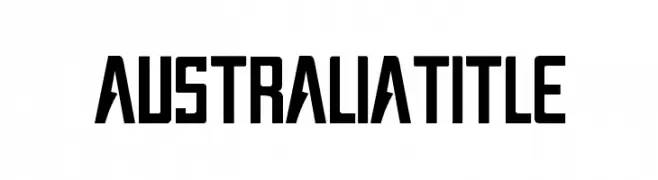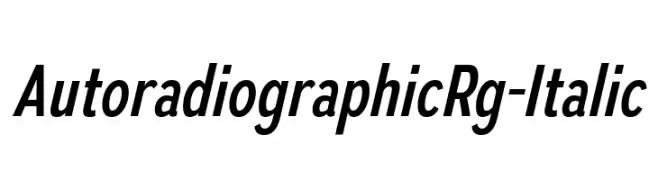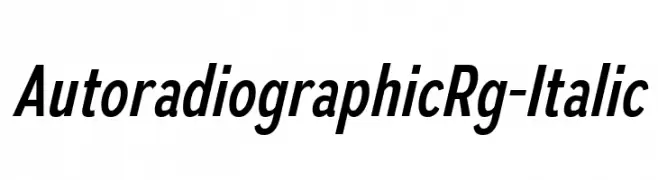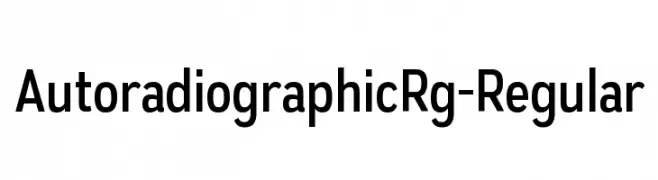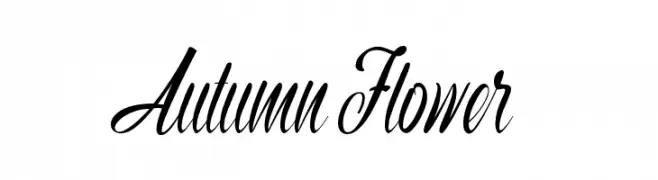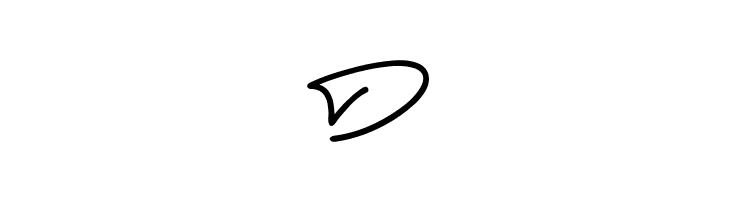
A bold, geometric font with sharp angles and a modern, edgy style.
A modern serif font with elegant contrast and sharp serifs.
A modern italic font with clean lines and smooth curves.
A modern italic font with clean lines and a slightly condensed form.
A modern sans-serif font with clean, legible letterforms and consistent stroke width.
A clean, modern sans-serif font with uniform strokes and a slightly condensed style.
A graceful and elegant script font with flowing, cursive letters.
A playful, textured font with a hand-drawn, sketch-like style.
A bold, playful font with a quirky, hand-drawn style.